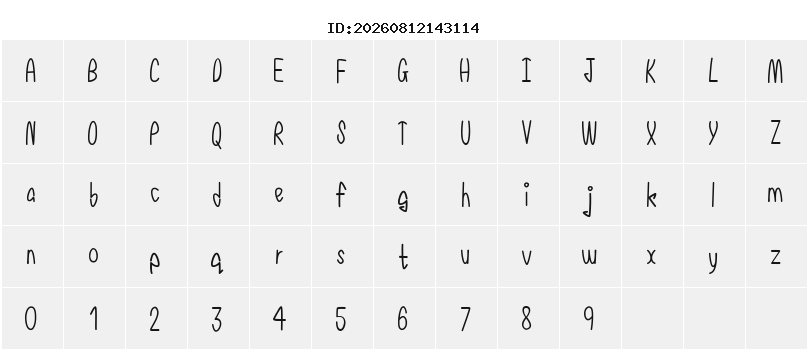
Risky Roadrunner 101 Preview
• Font Name: Risky Roadrunner 101
• Full Font Name: Risky Roadrunner 101 Regular
• PostScript Name: RiskyRoadrunner101-Regular
About Risky Roadrunner 101.ttf
Risky Roadrunner 101.ttf is a modern, elegant sans-serif font designed for ultimate readability and visual harmony. Perfect for branding, headlines, web design, and print materials.